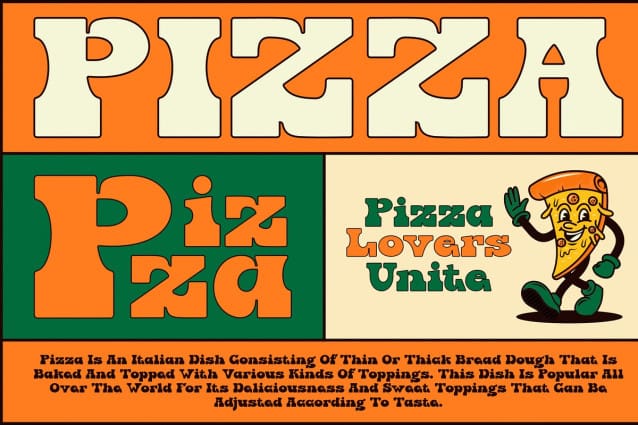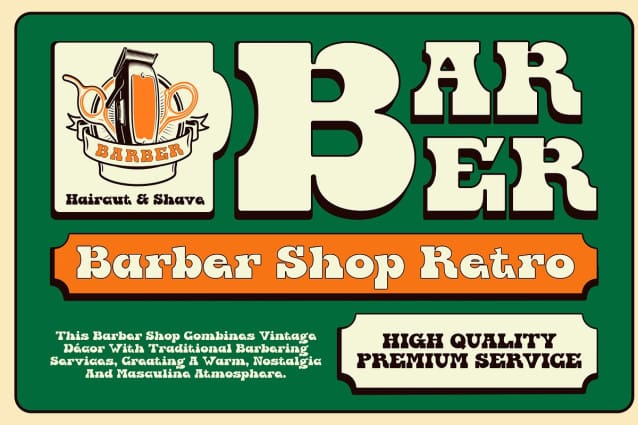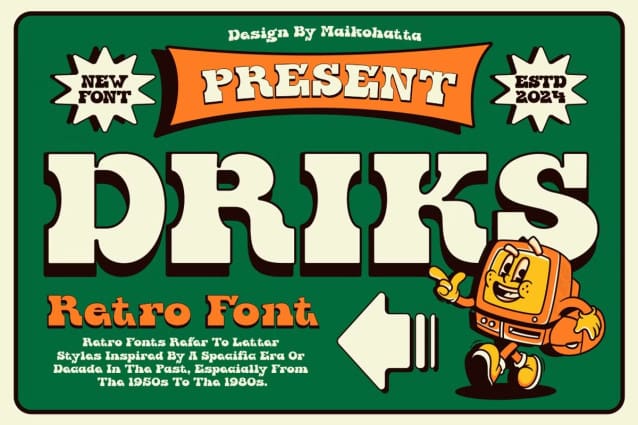
Driks Retro Font
Driks Retro Font: has a playful, optimistic and light-hearted atmosphere with a handwritten style often seen in comics or cartoons. This font is perfect for projects that want to highlight playful and fun elements, such as poster designs, invitations, comics or promotional materials aimed at a young audience or those looking for a sense of fun.